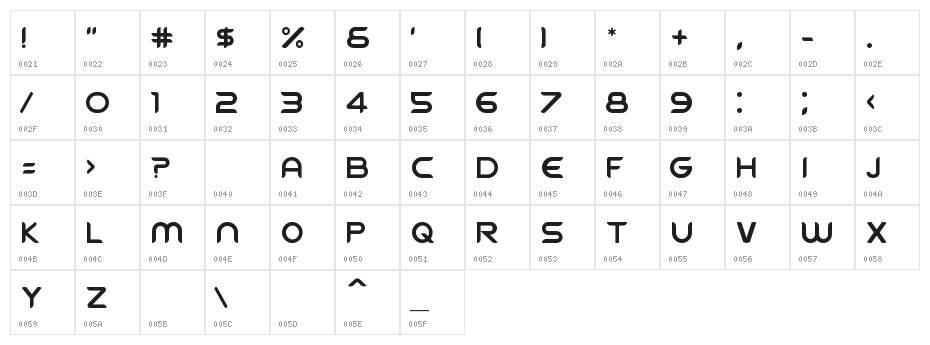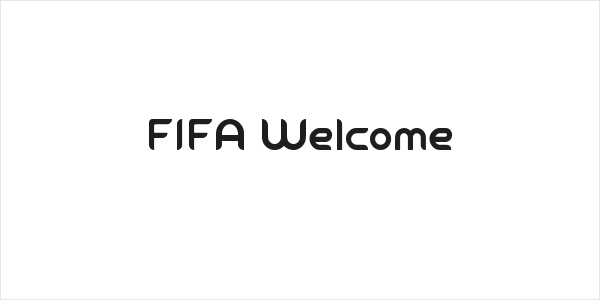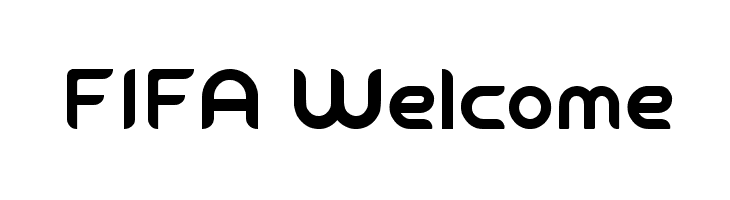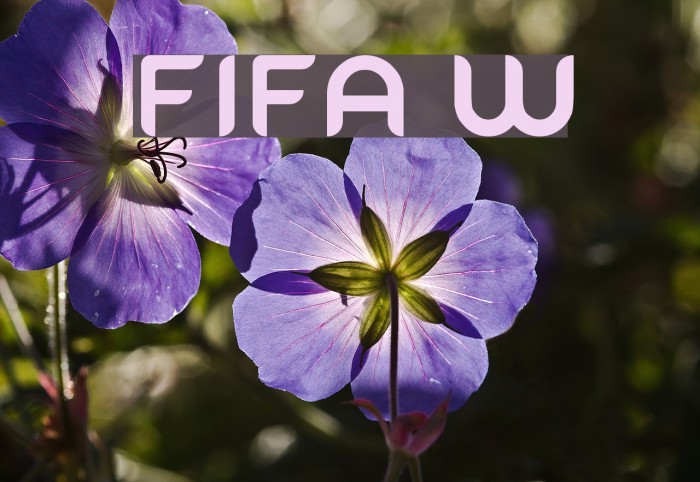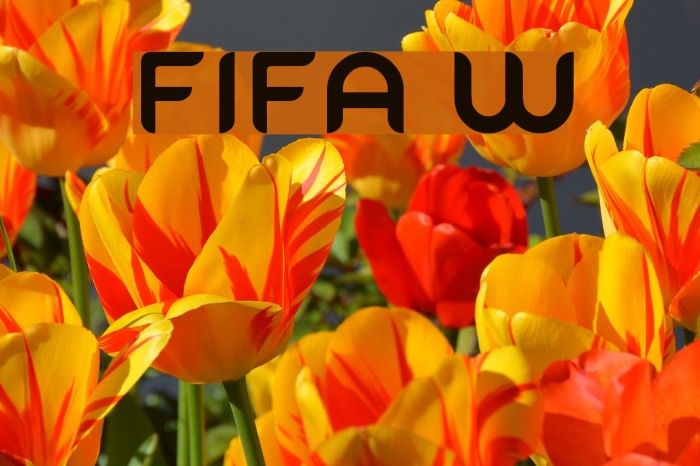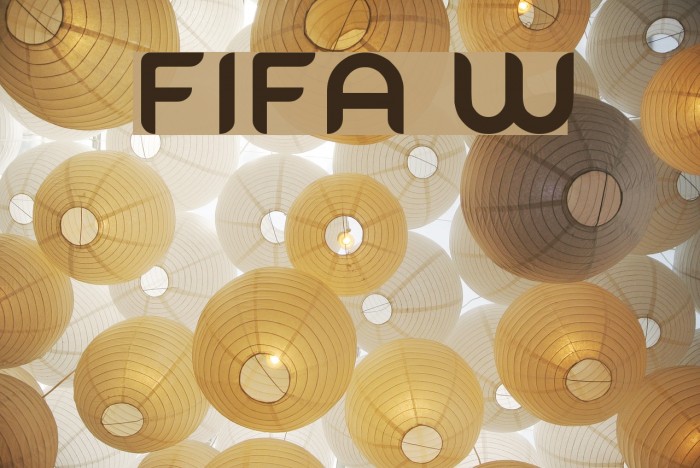
FIFA Welcome Font
FIFA Welcome Description
This font features a modern and sleek design with rounded edges and a geometric structure. The characters are uniform in width, giving it a balanced and cohesive appearance. The uppercase letters are bold and prominent, while the lowercase letters maintain a consistent style with a slightly softer touch. The numerals are clear and easy to read, making them suitable for various applications. Special characters are well-integrated, maintaining the overall aesthetic. The font's smooth curves and clean lines make it versatile for both digital and print media, offering a contemporary yet approachable feel.
| Use Case | Headlines, Logos, Digital interfaces |
| Proposed Projects | Ideal for branding, digital interfaces, signage, and editorial design. |